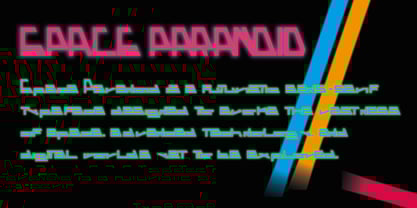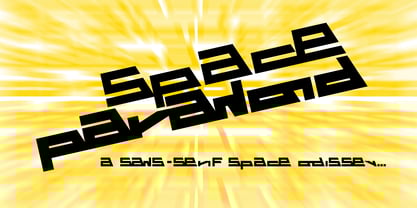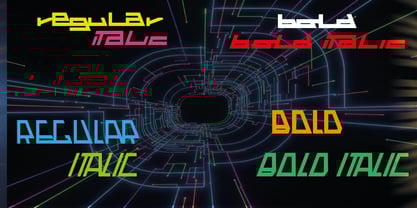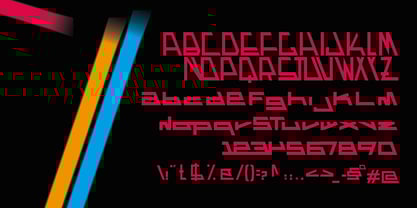
Space Paranoid
by Pitt's Hand
The Space Paranoid Font Family was designed by Pietro Rotelli and published by Pitt's Hand. Space Paranoid contains 4 styles and family package options. More about this family
Space Paranoid is a futuristic sans-serif typeface designed to evoke the vastness of space, advanced technology, and digital worlds yet to be explored. Clean, geometric, and sharply balanced, Space Paranoid blends sci-fi aesthetics with high readability, making it ideal for both display and functional use. Its letterforms are inspired by orbital trajectories, digital interfaces, and retro-futuristic visions of the cosmos—without sacrificing clarity or versatility. Perfectly suited for science fiction projects, video games, film titles, tech branding, UI design, posters, album covers, and experimental typography, this font performs equally well on screens and in print. The minimalist structure ensures strong visual impact, while subtle futuristic details give it a distinctive personality. Whether you’re designing a space opera title, a cyberpunk game interface, or a cutting-edge logo, Space Paranoid delivers a bold, modern voice that feels both timeless and forward-looking. Key Features Futuristic sans-serif design Clean, geometric shapes with sci-fi influences High legibility for display and digital use Ideal for games, space themes, technology, and digital art Strong personality with a minimalist, modern core